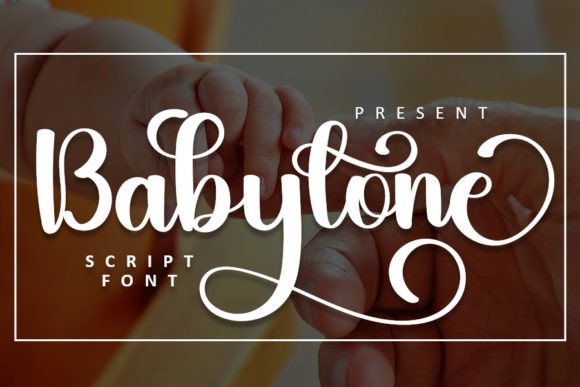
Discover the Elegance of the Babylone Font
As a designer, there’s nothing quite like the thrill of creating something from scratch. The blank canvas stares back at you, waiting for your creative touch. You take a deep breath, and the words start flowing. The Babylone Font is born, a beautiful and refined handwritten font that exudes class and modernity. Perfect for logos, branding, invitations, stationery, wedding designs, social media posts, and much more, this font is a game-changer for designers.
The Babylone Font is more than just a pretty face – it’s a valuable tool for designers who want to add a touch of sophistication to their work. With its PUA encoding, you can access all the amazing glyphs and ligatures with ease, making it a breeze to create stunning designs. Whether you’re a seasoned pro or just starting out, the Babylone Font is an essential addition to your design toolkit.
Babylone Font Key Features
- Font Family: Babylone is a script font, designed to mimic ancient Babylonian writing.
- Unique Characteristics: Features intricate, cursive-like connections between letters, giving it a distinctive, ancient feel.
Babylone Font Review
Overall, I think Babylone is a unique and stylish font that can add a touch of elegance to your designs. ✨ Its cursive script and intricate details make it perfect for creating a sense of luxury and sophistication.
- ✨ Elegant and refined design that exudes luxury
- ✨ Great for creating a sense of drama and flair
- ✨ Works well for titles, headings, and other display text
- ⚠️ Not ideal for large blocks of text due to its cursive nature
- ⚠️ May be difficult to read for people with certain visual impairments
- ⚠️ Can be overwhelming if used too much or in combination with other bold fonts
Overall, I think Babylone is a great choice for designers who want to add a touch of sophistication and elegance to their work. However, it’s essential to use it judiciously and in the right context to avoid overwhelming the reader.
Tips for Getting the Most Out of Babylone Font
For the best results, use Babylone Font in bold, uppercase text to create a dramatic and eye-catching effect. Experiment with different font sizes and styles to add visual interest to your design.
Babylone Font is ideal for:
- Brand logos and typography.
- Event graphics and signage.
- Any design project requiring a unique, vintage touch.
Exploring the Elegance of Babylone Font
Create a vintage-inspired travel poster featuring the Babylone Font.
Use the Babylone Font to add a touch of elegance to your poster by setting the title of the destination in bold, large letters. You can pair it with a distressed texture or a vintage-inspired background to give it a retro feel.